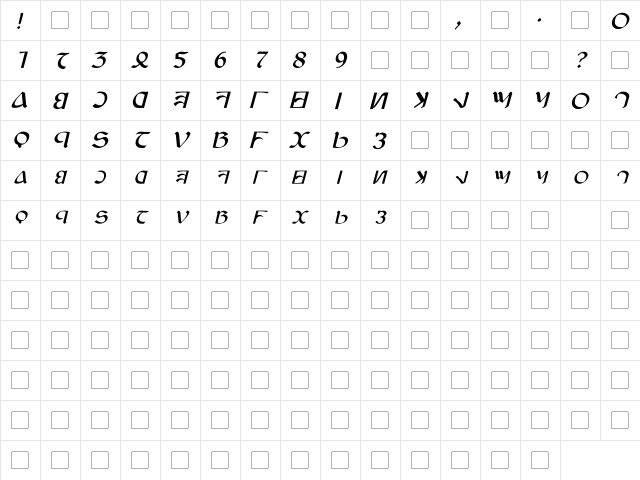
Anayanka Italic
| Foundry | Neale Davidson |
| Designer | Neale Davidson |
Design Context for Anayanka Typeface
Anayanka is a composed and adaptable typeface that performs quietly and consistently across a wide range of design contexts. The slanted form adds forward momentum and visual energy.
Pro Tip: Use Anayanka for emphasis, pull quotes, and subheadings where its slanted energy can add rhythm to the layout.